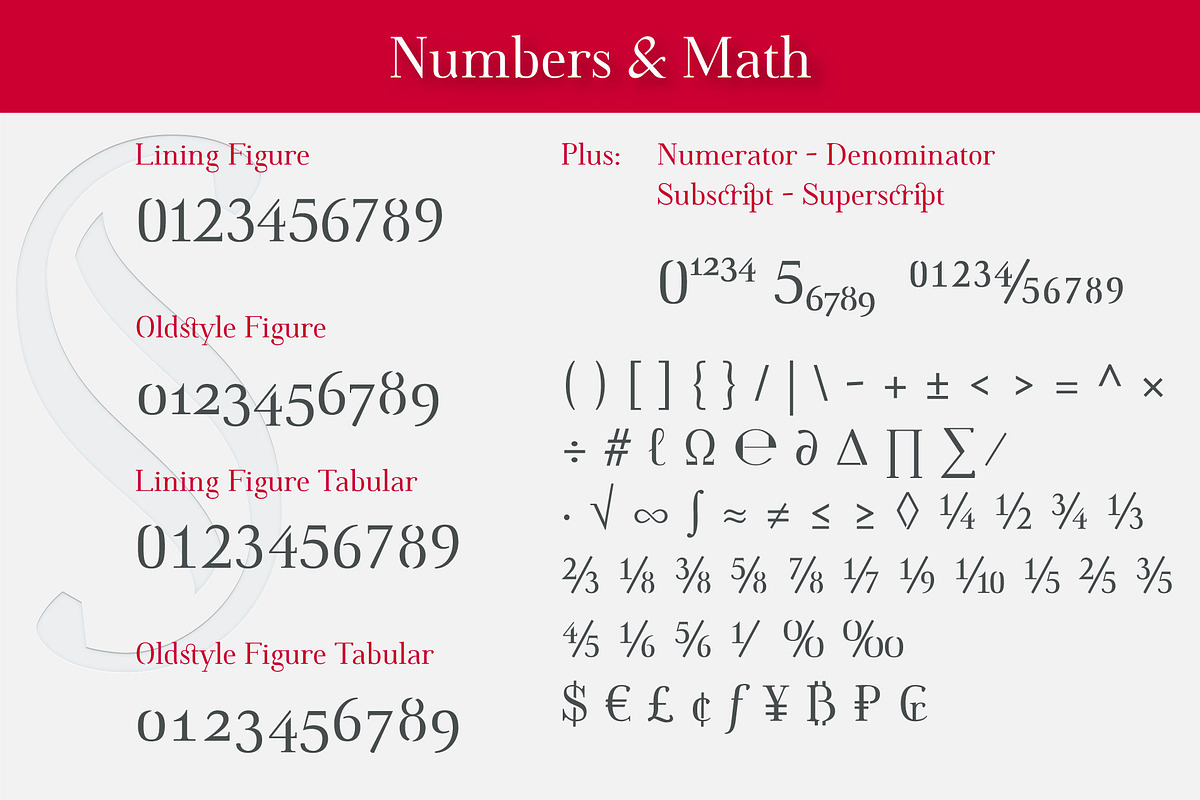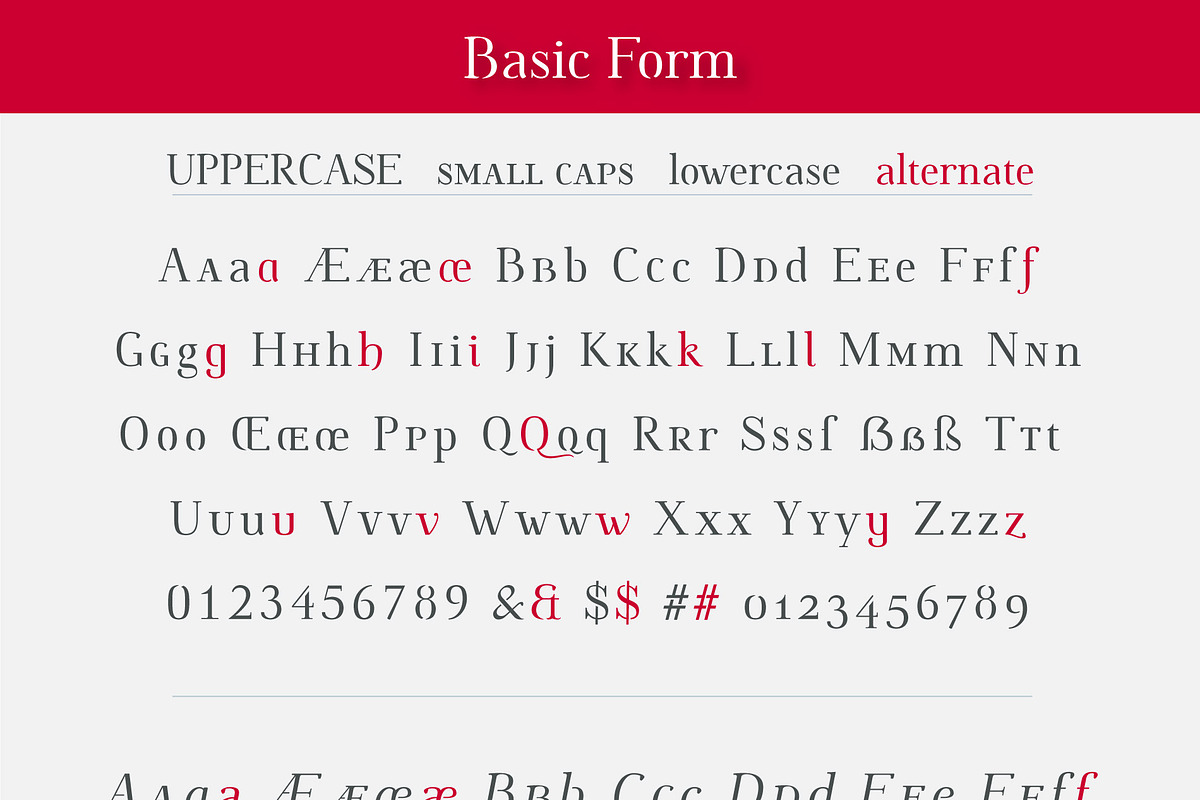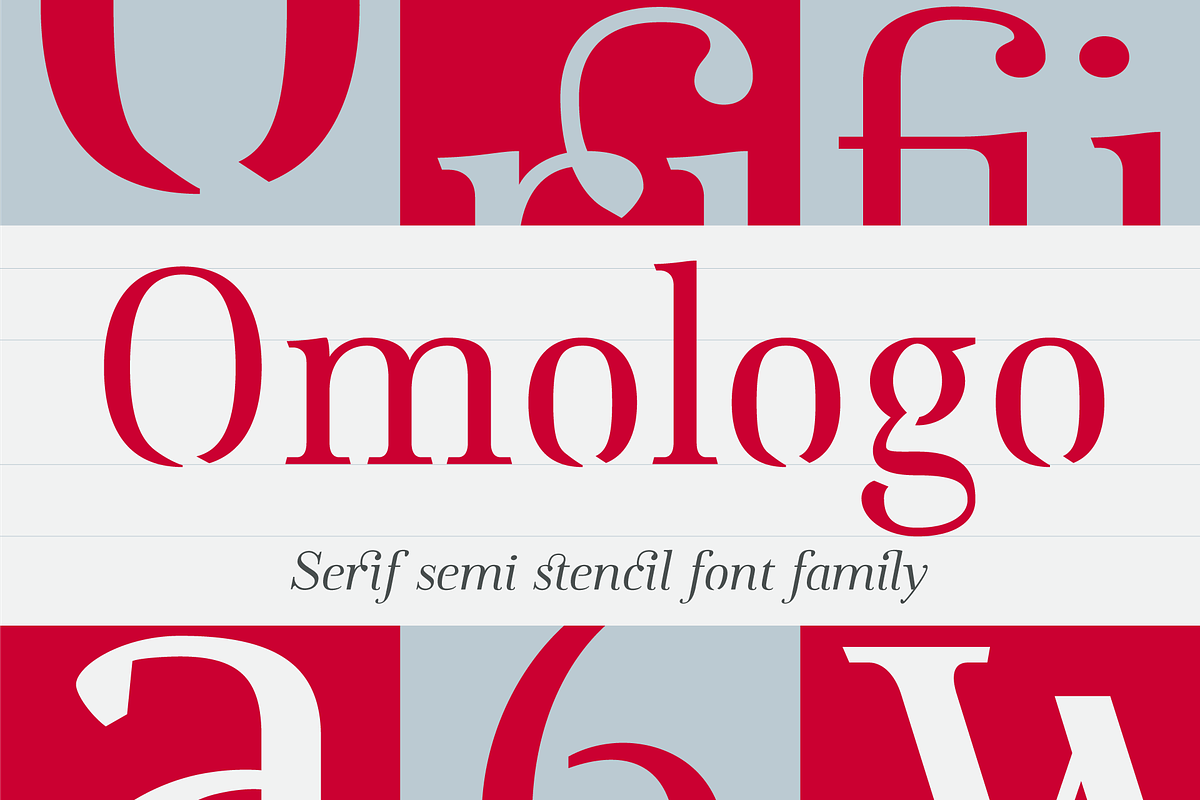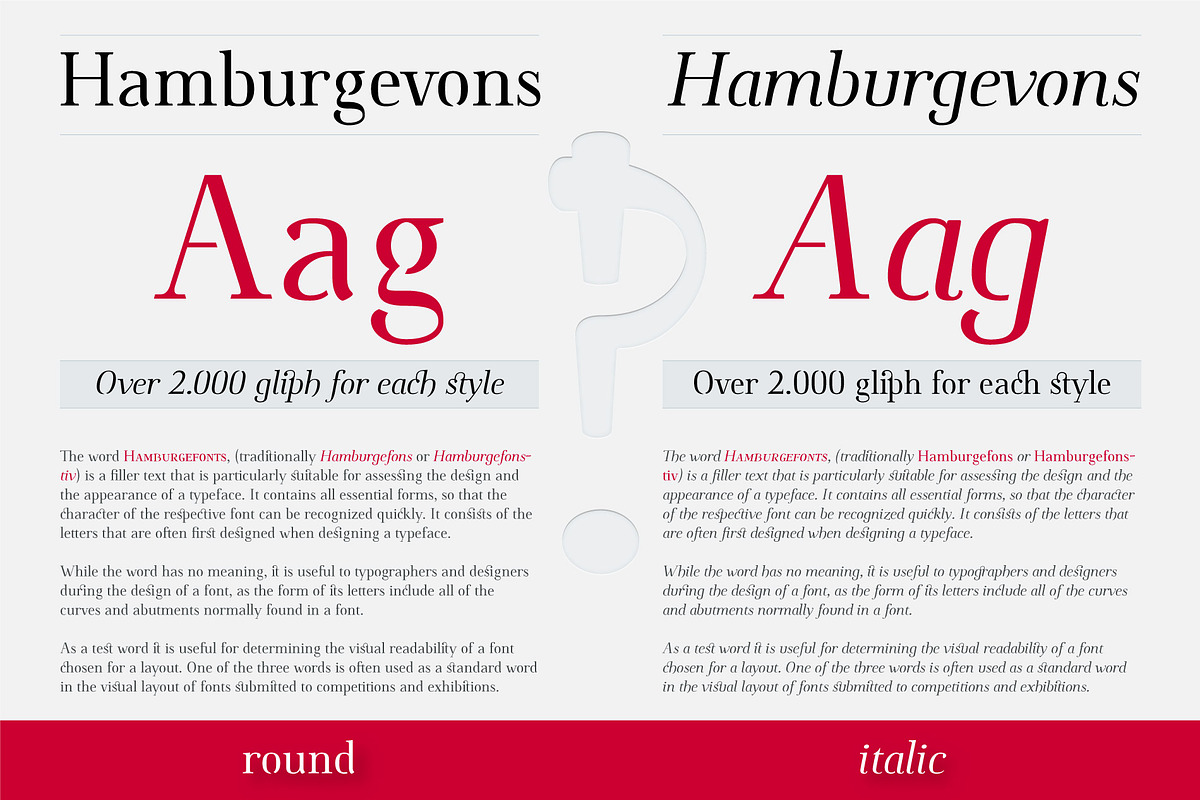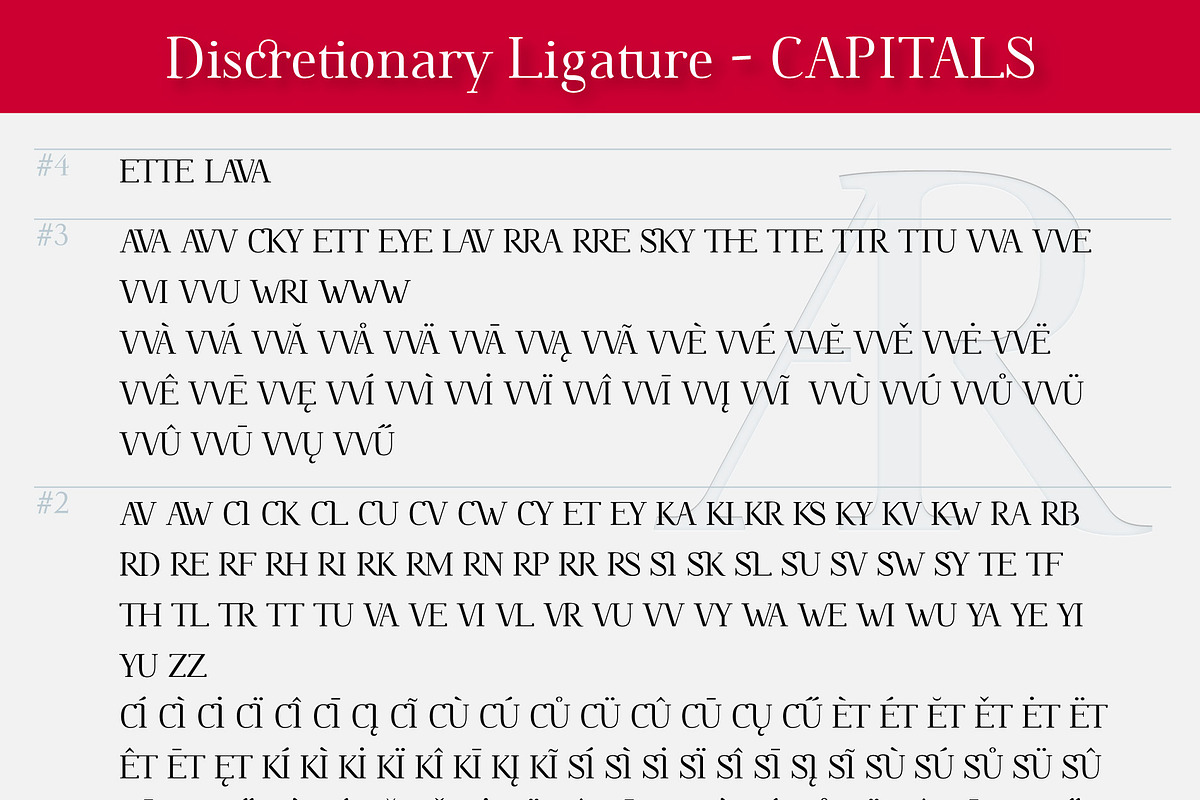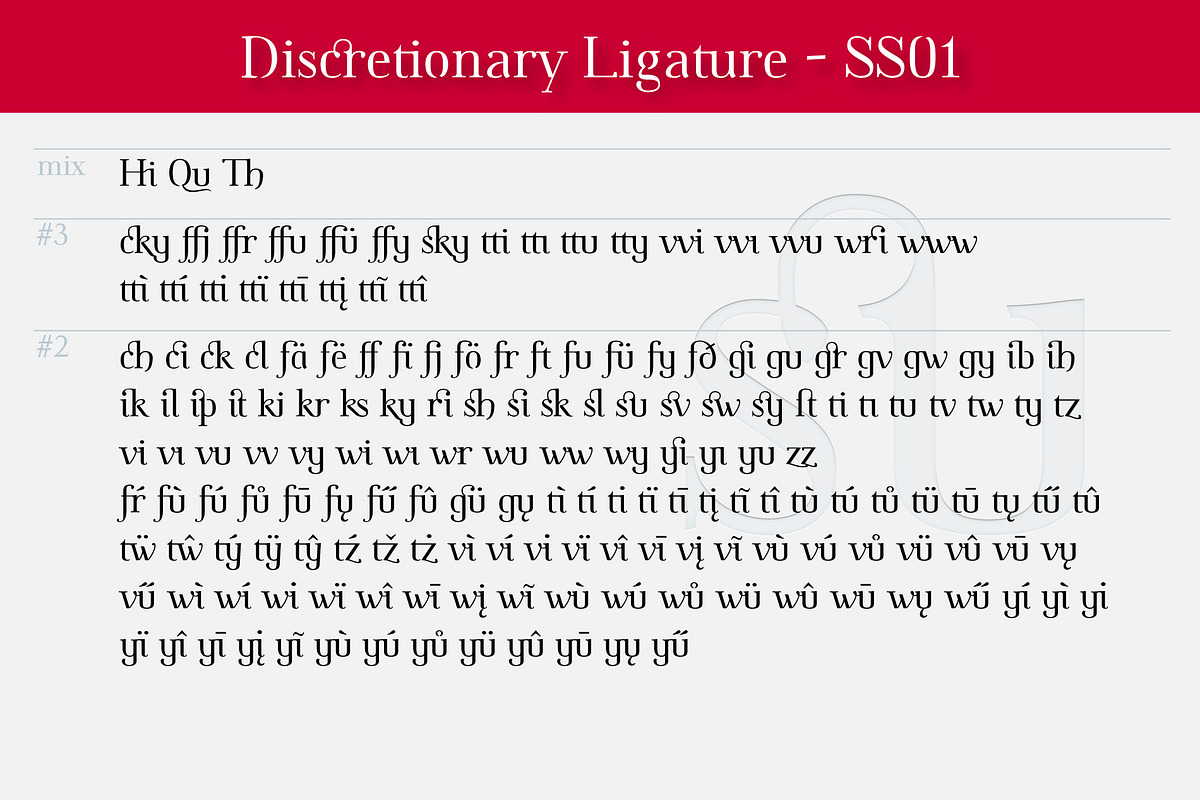
Omologo Serif semi stencil font family
Omologo is a brand new Serif semi stencil font family based on "old style" typography, translated in modern era with Unconventional number of LIGATURE. A mix of geometric forms, antique ligature and oblsolete (or forget?) gliphs.
Currently it comes in 2 styles: round and italic.
Standard + discretionary ligature (liga, dlig)
Alternative style set (ss01, ss02)
Small capital (c2sc, smcp)
Lining + Oldstyle figure linear or tabular (lnum, onum)
Numerator + Denominator + Subscript + Superscript (pnum, tnum, sups, subs)
Omologo is incredibly useful on most of creative field like magazine, poster, book, composition and it's a great ingredient to have in every kitchen!
- Each weight includes extended language support, ligatures and up to 2000 gliphs.